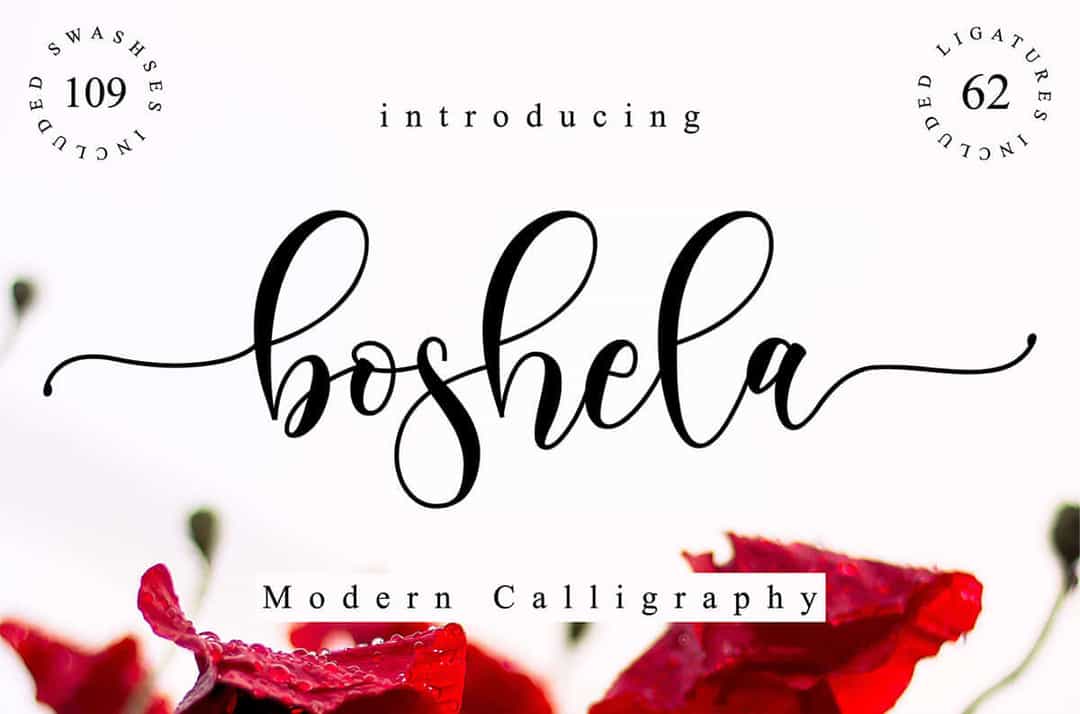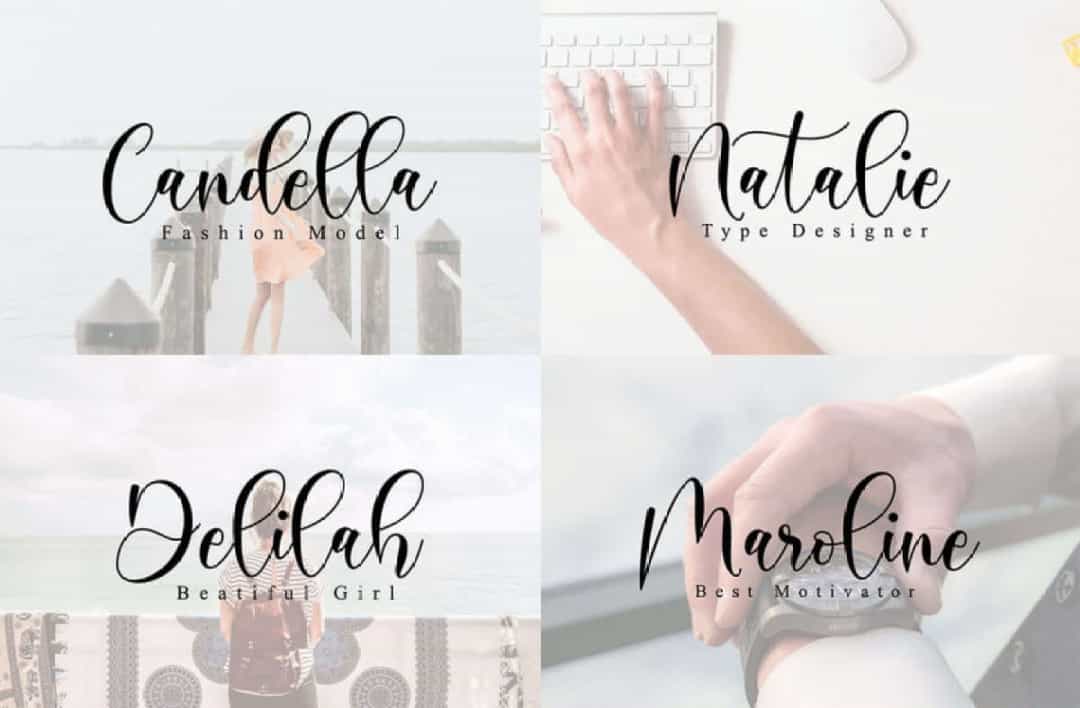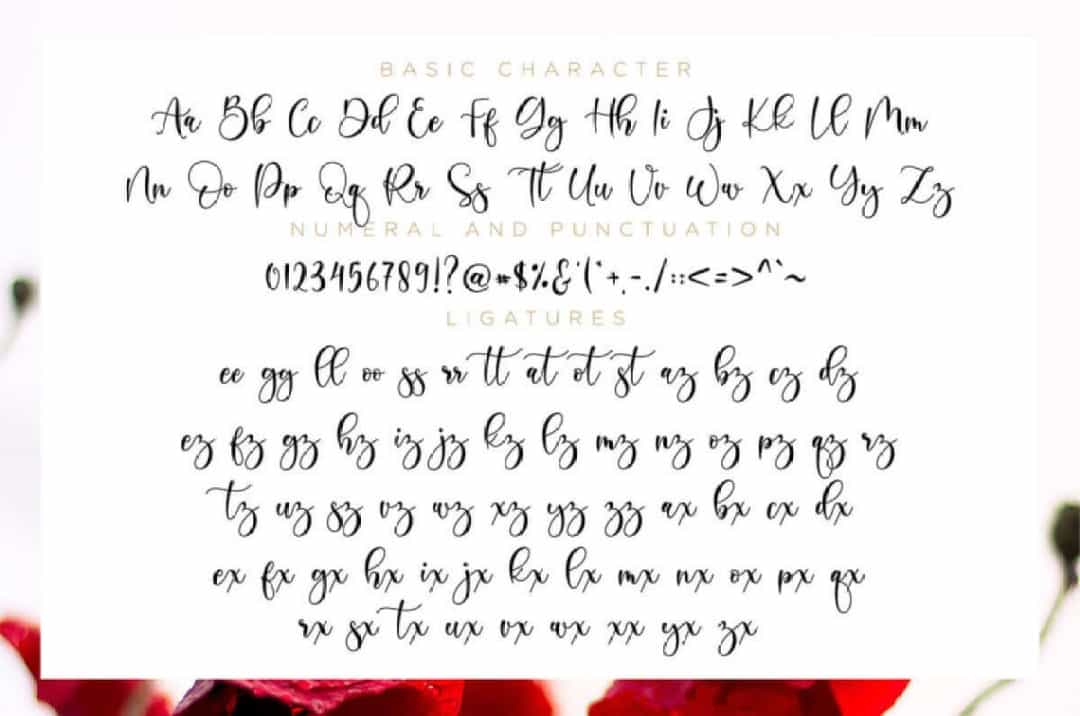
Boshela is a lovely script font. It has a simple, yet stylish, and modern look which can be used for a logo, branding, invitation, stationary, wedding design, social media post, and all the other designs that need a hand-written touch.